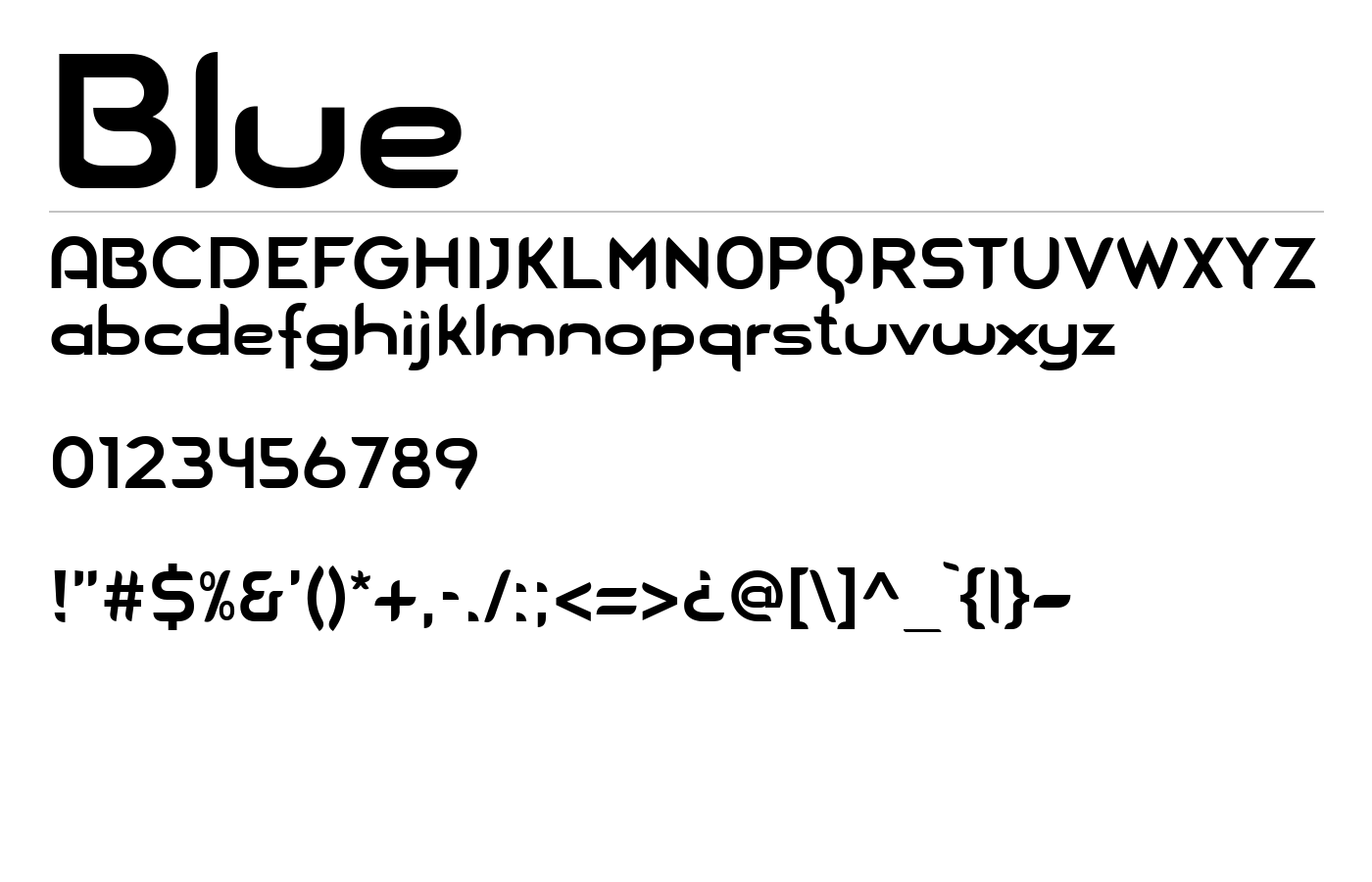
Blue Font is a modern sans serif typeface with a geometric, slightly condensed design that combines clean lines with subtle curves for a friendly yet futuristic feel. Its medium weight and high x-height make it highly legible and versatile, perfect for tech branding, editorial headlines, and digital interfaces where a sleek, contemporary style is desired. This font’s unique letter shapes and balanced spacing bring a fresh, approachable personality that stands out while remaining professional.
Blue Font
About Blue Font